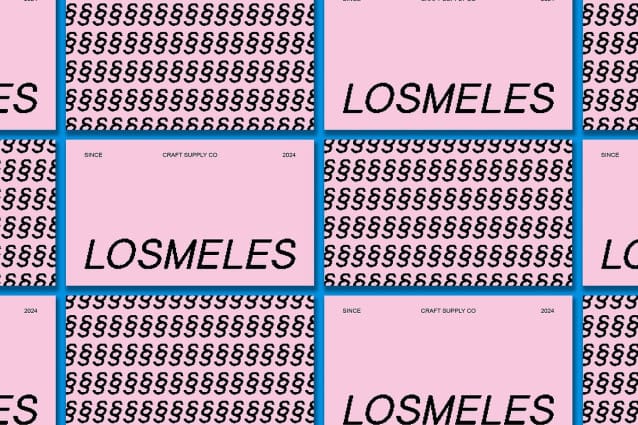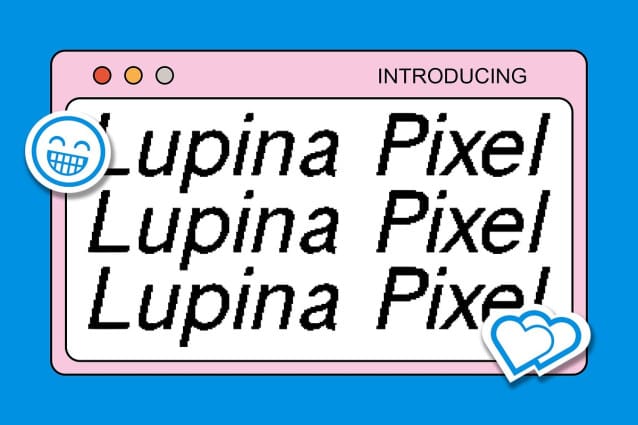
Lupina Pixel Font
Lupina Pixel Font is a display sans serif font featuring a pixel vibe, perfect for adding character and charm to any design. It combines the clean, modern look of a standard sans serif with the unique pixelated details, resulting in a font that stands out in any project.
With its condensed form, Lupina Pixel maximizes space efficiency without sacrificing readability. This makes it an excellent choice for headlines, banners, and other display purposes where space is limited, allowing more text to fit in smaller spaces.
Experience the subtle elegance of Lupina Pixel’s low contrast design, ideal for creating sophisticated displays. The low contrast lends a smooth and balanced appearance to your designs, adding a touch of refinement to any project.
Despite its condensed form and pixelated style, Lupina Pixel offers versatility for various design applications. From headlines to branding, its clean lines and unique pixel details make it suitable for a wide range of projects, including posters, packaging, logos, and more. Whether you’re crafting a sleek corporate identity or a stylish editorial layout, Lupina Pixel provides the perfect balance of elegance and efficiency.